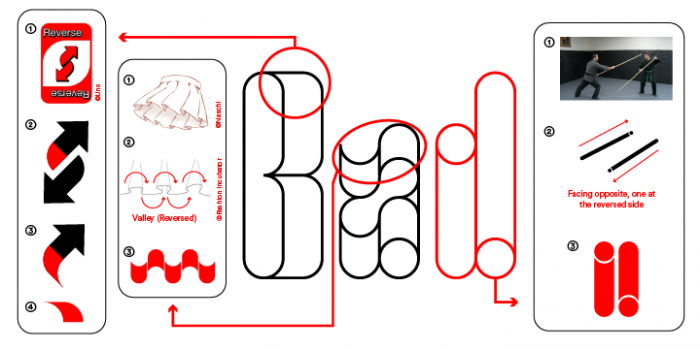
• A portmanteau of the term 'Pleat' and 'Uno', mx Pleato was inspired by the wavy pleats of the skirt and the tails of the 'Reverse' symbol arrows found in Uno cards. I was first interpreting the "Reverse" aspect of the glyph designs through a simple sketch of a pleated skirt/ribbon by using the opposites of the arches (AKA valleys) and then furthering the project using quarter arches of a ribbon (like the arrow tails in Uno), opposite-facing rods and other additional elements.
A very comprehensive design. Superb sample and presentation.
Thanks for the great description of your research and thought process :) teaching how to "give life" to a really exciting font design. Wonderful sampler, too. A creative FontStructor is at work here. Bravo
Ifuturemix, how man bricks are there?
Inventive letterforms, great to see your working process illustrated.
@Brynda: Total of 13 bricks based on "My Bricks" palette that I have. Other than the 4 thin macaroni bricks, the rest are composited and/or stacked together.
Where is the / glyph